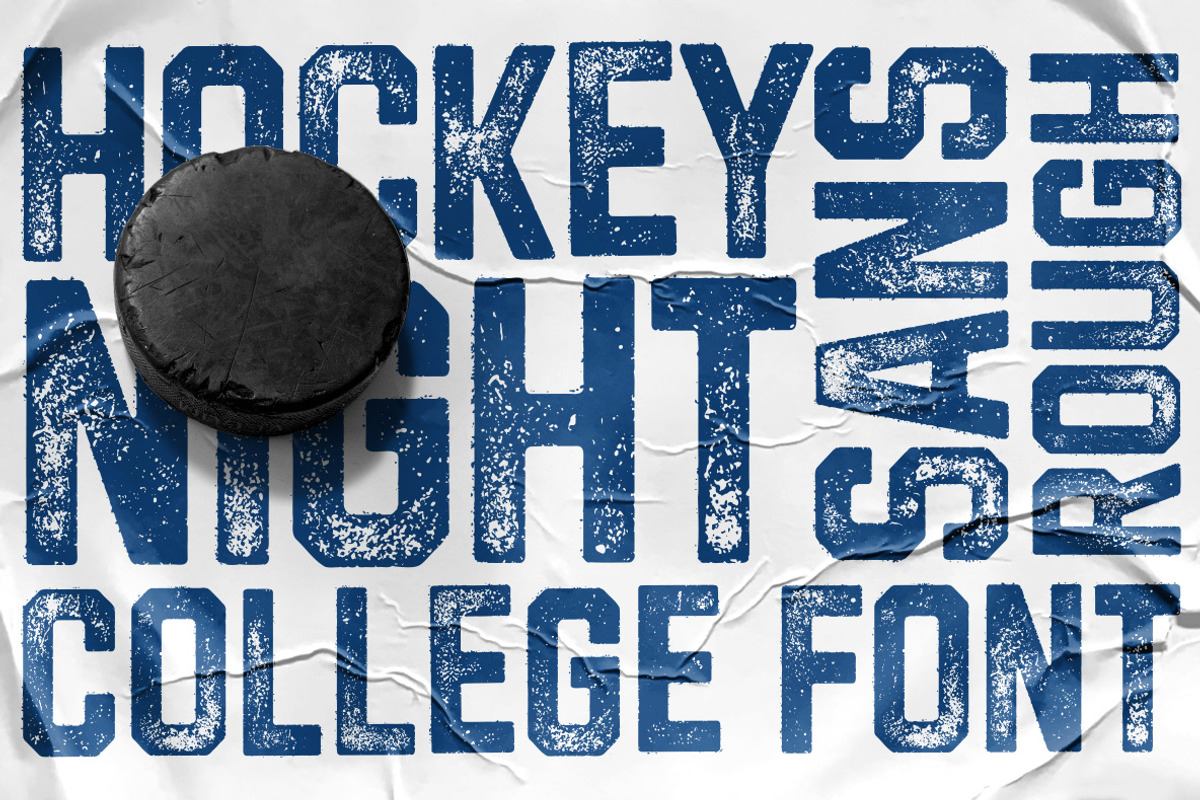
Hockeynight Sans Rough Font Free Download is a bold and gritty sans-serif typeface with a raw, distressed texture. Inspired by the rugged, energetic feel of sports and urban environments, this font is perfect for creating dynamic logos, posters, merchandise, sports branding, and any design project that requires an edgy and impactful aesthetic.
With its rough edges and bold presence, Hockeynight Sans Rough brings energy and strength to your typography, making it ideal for designs that need to stand out with confidence and style. Whether you're designing for a sports team, an event, or a brand, this font adds a touch of boldness and authenticity.
Add a touch of grit and power to your designs with Hockeynight Sans Rough!